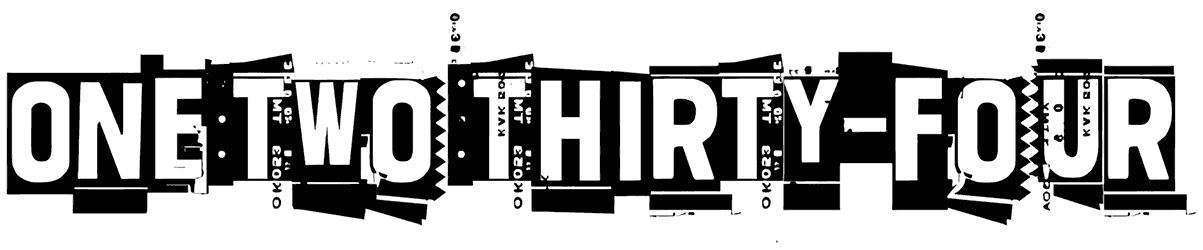
One two thirty-four Font
Welcome to the world of One two thirty-four font. A rough and bold font is waiting for you to implement your creative ideas in a new format.
This punk font is excellent for creating a fun and social look and can be great for designers looking for announcements or statements. Lack of mall letters hasn’t reduced the power of its communication with the audience, and it can always be an ideal choice to portray the essence of your brand or message.